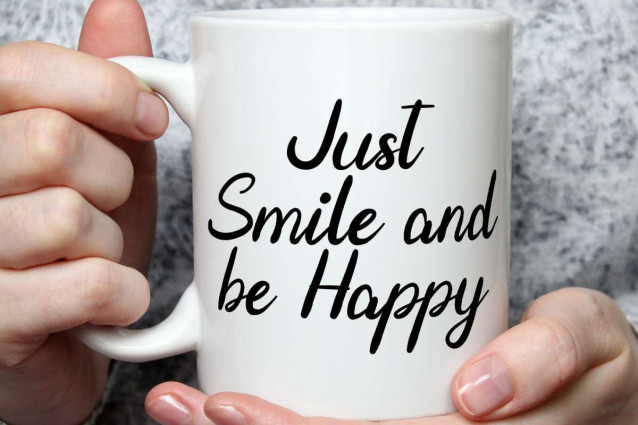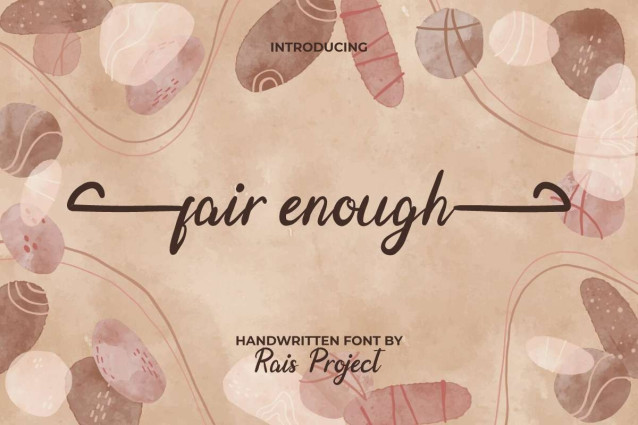
Fair Enough Font
Fair Enough Font is a beautiful handwritten font. This font has soft and neat lines that wave beautifully and still easy to read. This font has a lovely appearance making it suitable for many industries, such as beauty product, café, creative designer, event or wedding organizer, fashion, florist, homeware, photography, printing, publishing, writer, and more!
Fair Enough Font includes a full set of Uppercase and Lowercase Letters, Numerals, and large range of punctuation. This font also contain Swoosh character that will beautify your projects with its exclusive look, such as brand logo, business card, catalog, invitation, label, menu, poster, product packaging, quote, title, website, etc.